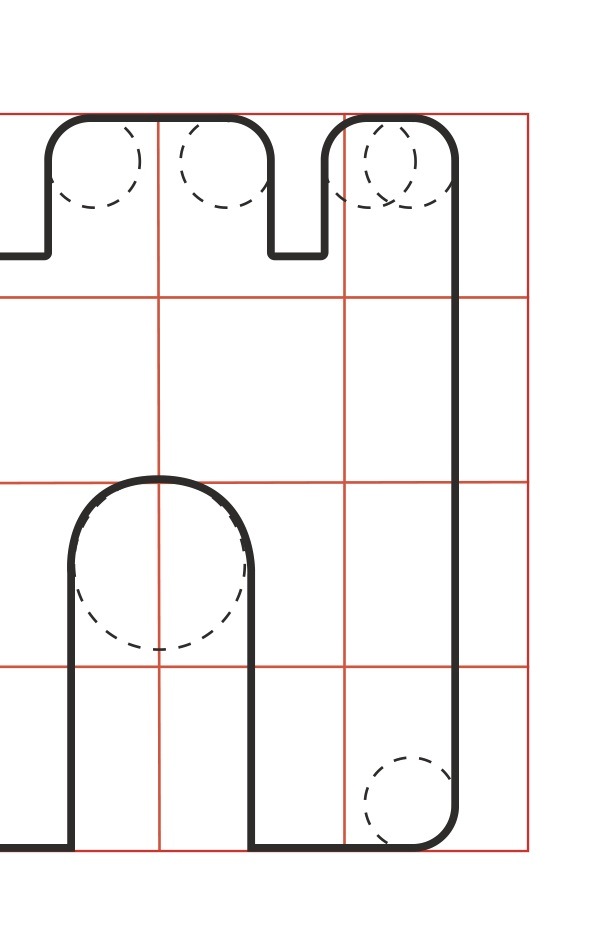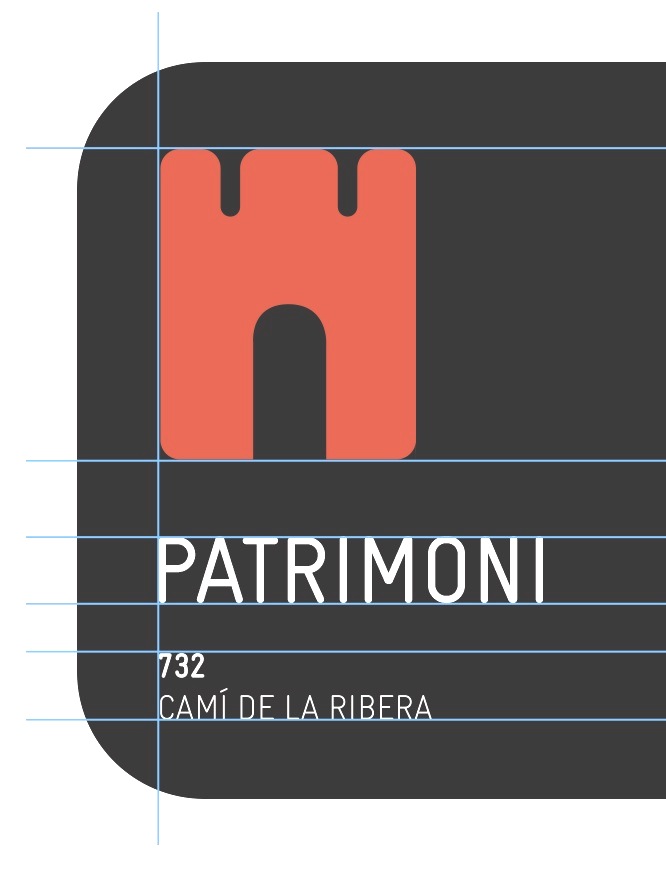
Adriá Gómez
Graphic designer in Barcelona, b. 1990. Creator of the free modular typeface Johanna (2012) and the 10-style organic sans typeface family Wake (2013).
He created a font and icons for La Molina Wayfinding (with Sergi Diaz and Jaume Juan).
Typefaces from 2014 include Luthier (a free transitional typeface family with wedge serifs), Wake (an elliptical sans) and Margot (free).